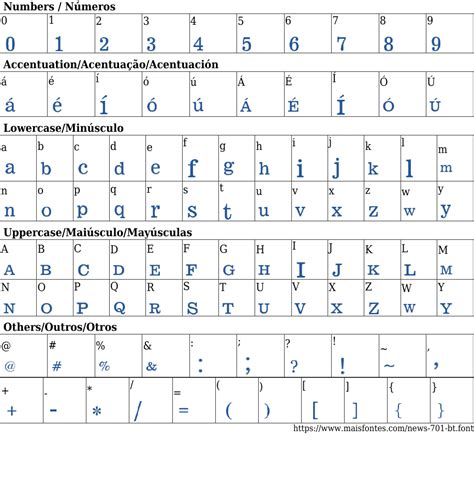
OSCNewssc 701 BT: A Comprehensive Font Guide
Hey there, font fanatics and design gurus! Today, we’re diving deep into the world of OSCNewssc 701 BT , a font that’s been making waves and catching the eyes of designers everywhere. If you’re wondering what makes this particular typeface so special, stick around, because we’re about to break it all down for you. We’ll cover its origins, its design characteristics, its best use cases, and why it might just become your new go-to font for certain projects. Whether you’re a seasoned pro or just starting out in the design scene, understanding the nuances of different fonts is crucial, and OSCNewssc 701 BT offers a unique blend of style and functionality that’s definitely worth exploring. So grab your favorite beverage, get comfy, and let’s get to know this fascinating font better. We’ll make sure to cover all the nitty-gritty details so you can confidently decide if it’s the right fit for your next big creation. This isn’t just about listing features; it’s about understanding the essence of the font and how it can elevate your designs from good to absolutely spectacular.
The Origins and Development of OSCNewssc 701 BT
Let’s kick things off by exploring where OSCNewssc 701 BT comes from. Understanding the background of a font can give you a whole new appreciation for its design and its intended purpose. While specific, granular details about the exact genesis of every single font can sometimes be a bit murky, especially for those that aren’t mega-famous mainstream typefaces, we can often infer a lot from their naming conventions and design aesthetics. The “BT” in OSCNewssc 701 BT typically stands for “Bitstream,” a company that was instrumental in the digital font revolution, known for digitizing many classic typefaces and developing new ones. This association suggests that OSCNewssc 701 BT likely has roots in the digital age, possibly stemming from a period where new font families were being developed for the burgeoning desktop publishing and digital design industries. The “OSCNewssc” part of the name might refer to the foundry or designer responsible, or perhaps a classification of the font’s style. Without direct historical documentation, we can speculate that it was designed to fill a specific niche in the market, perhaps offering a modern take on a classic sans-serif or serif style, or perhaps aiming for a unique character set that was particularly suited for certain applications like signage, headlines, or even body text in specific contexts. The development process for fonts like these often involves meticulous attention to detail, with designers painstakingly crafting each character, ensuring consistency in stroke weight, spacing, and overall visual harmony. The “701” could be a version number, a style identifier, or simply part of a cataloguing system. Regardless of the exact numerical or acronym significance, the key takeaway is that fonts like OSCNewssc 701 BT are products of deliberate design choices, honed over time to achieve a particular aesthetic and functional outcome. Exploring these origins helps us understand the font’s personality and why it might possess certain traits that make it stand out from the crowd. It’s like knowing the backstory of your favorite character in a movie; it adds depth and context to their presence.
Decoding the Design Characteristics of OSCNewssc 701 BT
Now, let’s get down to the nitty-gritty: what does OSCNewssc 701 BT actually look like, and what are its defining design characteristics? This is where the magic really happens, guys, because the visual attributes of a font are what make it unique and determine its impact on your design. When you first lay eyes on OSCNewssc 701 BT , what stands out? Is it the stroke contrast? The serifs (or lack thereof)? The x-height? The overall mood it conveys? Let’s break it down. As a “BT” font, it’s likely to possess characteristics that made it suitable for digital screens and print in the late 20th or early 21st century. If it’s a sans-serif, you’re probably looking at clean lines, open counters (the enclosed or partially enclosed negative space in letters like ‘o’ or ‘p’), and a generally legible appearance. If it leans towards a serif style, then expect those little decorative strokes at the ends of the main strokes, which can add a touch of elegance or tradition. What about its personality? Is it friendly and approachable, or serious and authoritative? Does it have quirky, distinctive letterforms, or is it more of a workhorse font designed for maximum readability? Pay attention to the kerning – the space between specific pairs of letters – and the tracking – the overall spacing of a block of text. These elements, while subtle, play a massive role in how readable and aesthetically pleasing the font appears. For instance, a font with tight kerning might feel more compact and modern, while looser kerning could give it a more airy and classic feel. The x-height (the height of lowercase letters like ‘x’) is another crucial factor. A larger x-height generally improves readability, especially at smaller sizes. The ascenders and descenders (the parts of letters that extend above the x-height, like in ‘h’ or ‘p’, and below, like in ‘p’ or ‘q’, respectively) also contribute to the font’s overall rhythm and flow. Consider the terminals – the end of a stroke. Are they cut sharply, rounded, or flared? These details can significantly alter the font’s character. OSCNewssc 701 BT , depending on its specific classification, might offer a generous range of weights and styles, from thin and delicate to bold and commanding, giving you versatility for different design needs. Ultimately, analyzing these design characteristics is like dissecting a piece of art; you begin to understand the artist’s choices and the emotional impact they intended to create. It’s all about those little details that add up to a big impression.
Why Choose OSCNewssc 701 BT for Your Next Project?
So, you’ve got a design project on your hands, and you’re on the hunt for the perfect typeface. Why should OSCNewssc 701 BT be on your radar? Well, guys, the beauty of a well-chosen font is that it can completely transform the message and aesthetic of your work. OSCNewssc 701 BT , with its unique blend of design characteristics we just discussed, offers a compelling set of advantages. Let’s talk about versatility . Many fonts, especially those developed by reputable foundries like those associated with Bitstream, come with a comprehensive family, offering various weights (light, regular, bold, black) and styles (italic, condensed, expanded). This means you can use OSCNewssc 701 BT consistently across different elements of your design – for your main headings, subheadings, body copy, and even captions – while maintaining a cohesive look and feel. Imagine using a bold weight for a striking headline and a lighter weight for the supporting text; it creates visual hierarchy and guides the reader’s eye effortlessly. Another key reason to consider OSCNewssc 701 BT is its potential for readability . If it’s designed with clarity in mind, as many digital-era fonts are, it will perform exceptionally well on screens, ensuring your content is easily digestible for your audience. This is absolutely crucial in today’s digital-first world. Furthermore, distinctiveness . While many fonts are designed to be safe and unobtrusive, OSCNewssc 701 BT might possess just enough unique flair to make your design stand out from the sea of generic templates. Whether it’s a subtle curve in a letterform, a particular open counter, or a distinctive serif, these small details can add personality and memorability to your brand or message. Think about branding . A consistent and appropriate typeface is a cornerstone of strong branding. If OSCNewssc 701 BT aligns with the personality you want to project – perhaps modern, professional, friendly, or sophisticated – it can become an integral part of your visual identity. It’s about choosing a font that doesn’t just fill space but actively contributes to the narrative you’re trying to tell. Finally, let’s consider cost-effectiveness . While premium fonts can be expensive, sometimes well-established typefaces that have been around for a while, like those from major digital foundries, offer excellent value for money, providing professional quality without breaking the bank. So, if you’re looking for a font that balances readability, distinctiveness, versatility, and potentially good value, OSCNewssc 701 BT is definitely a contender worth investigating further for your next creative endeavor. It’s about finding that perfect typographic partner that helps your message shine.
Best Use Cases for OSCNewssc 701 BT
Alright, now that we’ve sung the praises of OSCNewssc 701 BT , let’s get practical. Where does this font really shine? Knowing the ideal use cases for a typeface is just as important as understanding its design. Trying to force a font into a role it wasn’t designed for is like trying to fit a square peg in a round hole, and it rarely ends well, guys. So, let’s explore the scenarios where OSCNewssc 701 BT is likely to perform exceptionally well. Given its potential digital roots and the “BT” designation, headlines and display text are almost certainly a strong suit. If the font has a bit of personality and strong visual presence, it’s perfect for grabbing attention on websites, posters, brochures, and advertisements. Think bold statements, catchy slogans, and impactful titles. Its unique characteristics can make these prominent text elements memorable and engaging. For branding and logos , OSCNewssc 701 BT could be a fantastic choice if it aligns with the brand’s personality. A logo needs to be distinctive yet legible, and if this font offers that balance, it could be a real winner. Imagine a startup wanting a modern, tech-savvy look, or an established company seeking a refresh with a contemporary feel; this font might just do the trick. Web design is another prime area. As mentioned, fonts developed for the digital age often prioritize screen readability. OSCNewssc 701 BT could be excellent for website body copy, especially if it has a generous x-height and clear letterforms. It ensures that your visitors can read your content comfortably without eye strain, which is paramount for user experience. It might also be great for UI elements like buttons, navigation menus, and captions, where clarity and conciseness are key. Editorial design , such as magazines and newspapers, can also benefit. If the font family offers a good range of weights, it can be used for everything from the main article text to pull quotes and bylines. The consistency it provides can lend a professional and polished look to publications. For packaging design , especially for products aiming for a modern or sophisticated market, OSCNewssc 701 BT could add a unique visual signature. Its distinctiveness can help a product stand out on a crowded shelf. Even in presentations and reports , where clarity and professionalism are non-negotiable, a well-chosen font like OSCNewssc 701 BT can elevate the overall impact, making data and information more accessible and engaging. However, it’s always wise to test it out. Does it look good at small sizes? Does it hold up when used in large blocks of text? Does it convey the right tone for your specific audience? By considering these questions and matching them with the font’s inherent strengths, you can confidently deploy OSCNewssc 701 BT in contexts where it will truly excel, making your design work smarter, not harder.
Tips for Pairing OSCNewssc 701 BT with Other Fonts
Okay, so you’ve fallen in love with OSCNewssc 701 BT , and you’re ready to incorporate it into your designs. But here’s the thing, guys: rarely does a single font do all the heavy lifting. Effective design often involves creating a typographic hierarchy and visual interest by pairing different fonts. This is where the art of font pairing comes in, and it’s crucial for making your designs look polished and professional, not just a jumbled mess. So, how do you make OSCNewssc 701 BT play nicely with others? The golden rule of font pairing is to create contrast, but not chaos. You want your fonts to complement each other, not compete. Let’s break down some strategies. Consider the font’s personality . If OSCNewssc 701 BT is a bold, modern sans-serif, you might want to pair it with a more classic, perhaps a serif font for body text. This creates a dynamic contrast between modern and traditional, or between attention-grabbing and highly readable. Think of pairing a strong headline in OSCNewssc 701 BT with a gentle, legible serif like Georgia or Times New Roman for your paragraphs. Conversely, if OSCNewssc 701 BT is more understated, you could pair it with a display font that has a lot of personality for headlines, while OSCNewssc 701 BT handles the supporting text. Hierarchy is key . Use your paired fonts to establish a clear visual order. Your primary font (perhaps OSCNewssc 701 BT for headlines) should stand out, while your secondary font should be highly readable for longer passages. Don’t go overboard; usually, two or three font families are plenty for a single design project. Too many fonts can look messy and unprofessional. Look for shared characteristics . Sometimes, fonts from the same superfamily or those designed with similar principles can pair well. For example, if OSCNewssc 701 BT has particularly open counters, you might look for another font that also features open forms for a sense of harmony. Or, if it has a certain geometric quality, pairing it with another font that shares that geometric structure can create a cohesive feel. Test, test, test! The best way to find out if a pairing works is to see it in action. Mock up different combinations. Does the contrast feel right? Is it easy to read? Does it evoke the desired emotion? Sometimes a pairing that sounds good on paper might not work visually, and vice versa. Avoid similar fonts . Pairing two sans-serifs that are too alike can create confusion, as the reader might not understand why there are two similar fonts being used. The contrast needs to be distinct enough to be noticeable and purposeful. For instance, if OSCNewssc 701 BT is a geometric sans, pairing it with a humanist sans or a classic serif will provide better contrast than pairing it with another geometric sans that’s only slightly different. Think about the overall mood you want to create. OSCNewssc 701 BT might be your anchor, and the secondary font adds the flavor. By thoughtfully selecting and combining fonts, you can create designs that are not only visually appealing but also communicate your message with clarity and impact. It’s about building a harmonious typographic ecosystem where each font plays its part beautifully.
Conclusion: OSCNewssc 701 BT - A Typographic Asset
So, there you have it, guys! We’ve taken a deep dive into the world of OSCNewssc 701 BT , exploring its potential origins, dissecting its design characteristics, identifying its best use cases, and even offering some handy tips on how to pair it effectively with other typefaces. It’s clear that OSCNewssc 701 BT isn’t just another font in the vast digital library; it’s a carefully crafted typographic tool that can bring significant value to your design projects. Whether you’re a designer looking to add a distinctive touch to your branding, a web developer aiming for superior readability on screen, or an editor seeking a cohesive and professional look for your publications, OSCNewssc 701 BT offers a compelling set of attributes. Its potential versatility across different weights and styles means you can rely on it for a wide range of applications, ensuring consistency and visual appeal throughout your work. Remember, the right font can make or break a design. It’s the silent communicator that sets the tone, guides the reader, and reinforces your message. OSCNewssc 701 BT , with its likely blend of digital-age clarity and unique aesthetic qualities, has the potential to be that perfect typographic asset. Don’t just take our word for it, though. The best way to truly appreciate a font is to experiment with it yourself. Download it, play around with it in your design software, and see how it feels. Test it in different sizes, contexts, and pairings. You might be surprised at how effectively OSCNewssc 701 BT can elevate your creative output. As you continue to hone your design skills, remember that a deep understanding and appreciation of typography – the building blocks of all visual communication – will always serve you well. Fonts like OSCNewssc 701 BT are testament to the power of design and the impact that even the smallest details can have. So go forth, experiment, and let OSCNewssc 701 BT help you create something truly amazing. Happy designing!